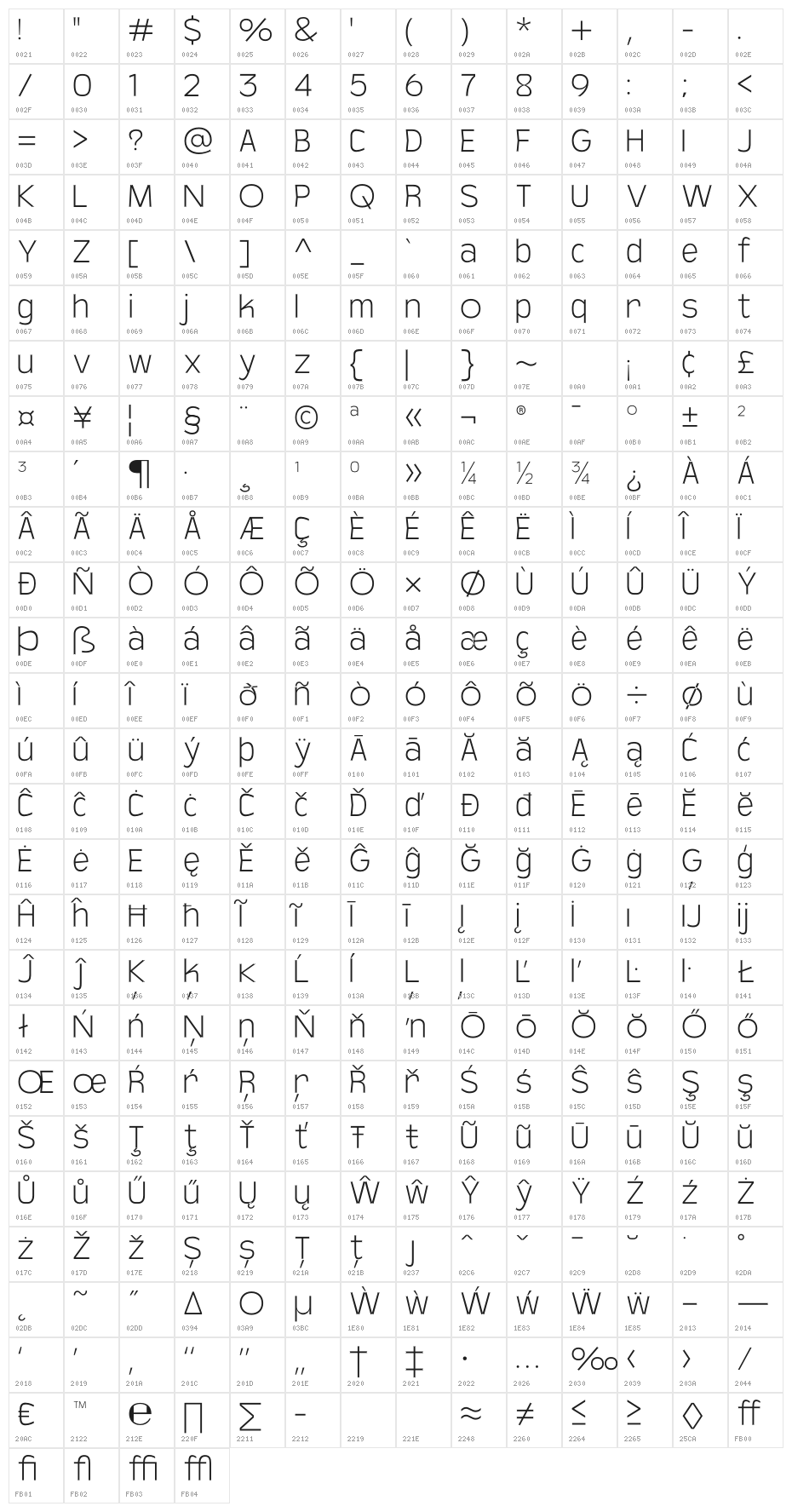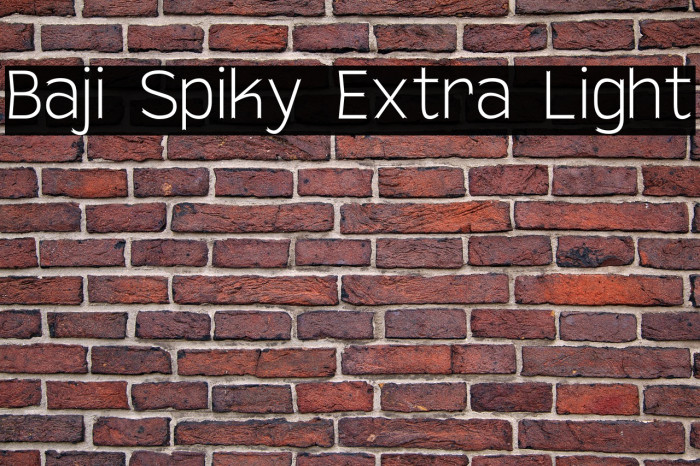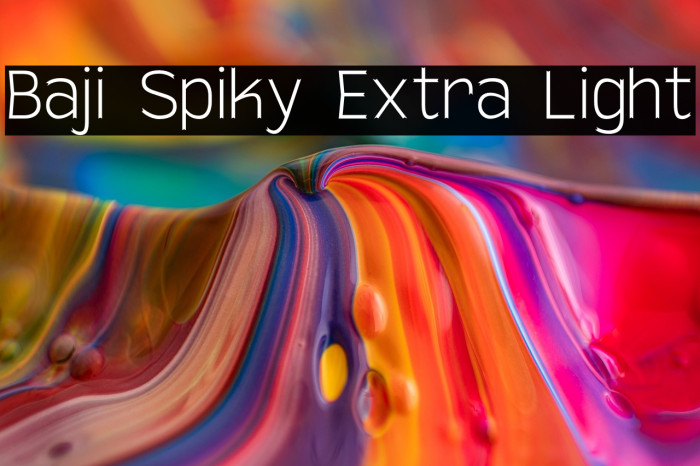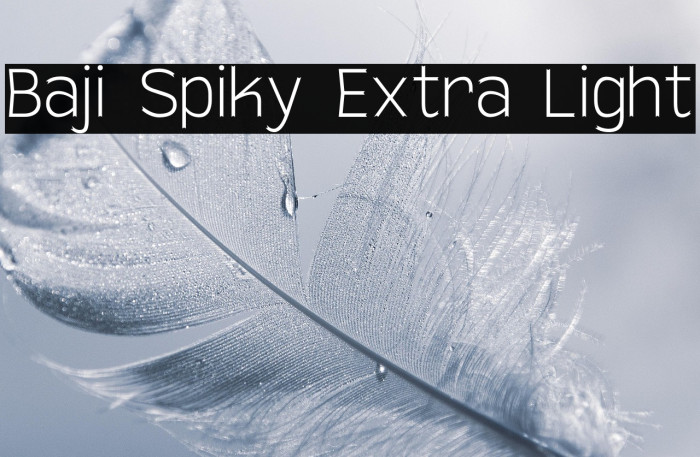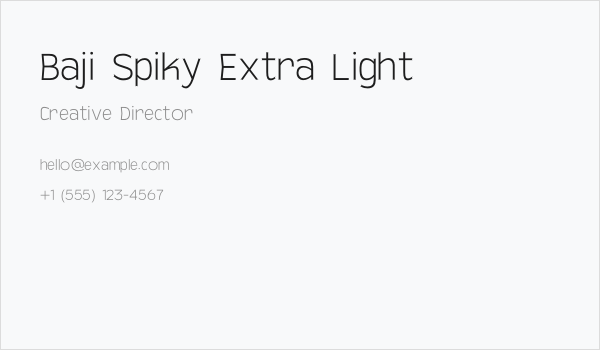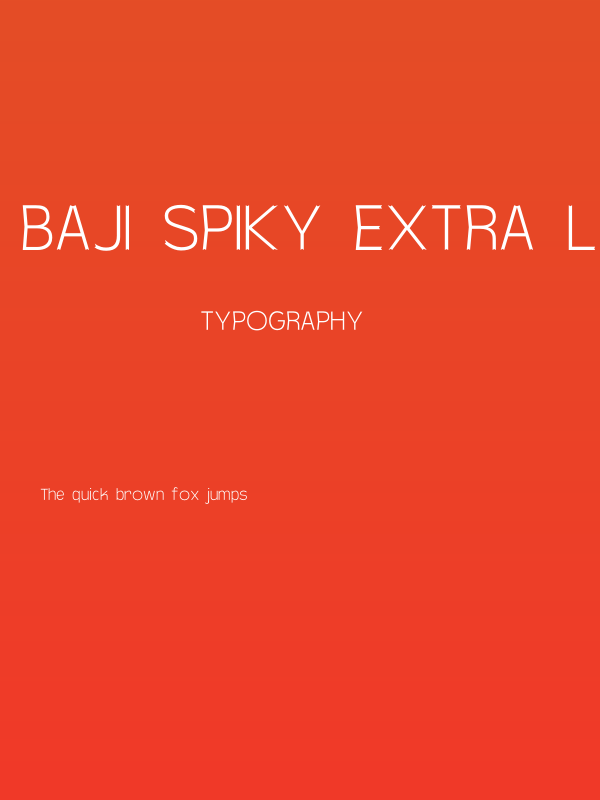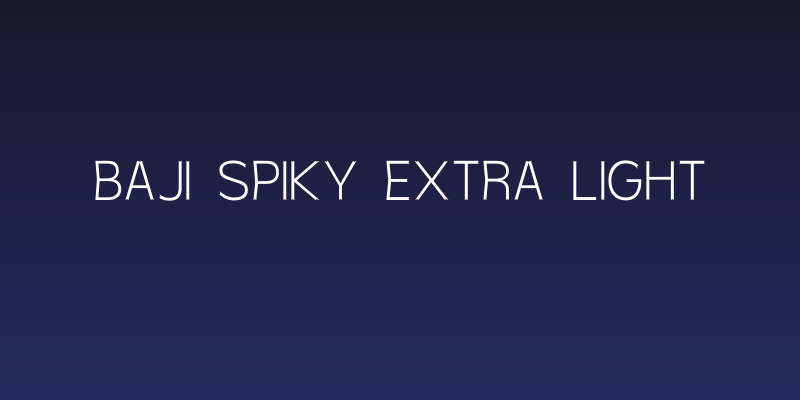
Baji Spiky Extra Light Font
Baji Spiky Extra Light Description
This font features a sleek and modern design with a distinct spiky appearance. The characters are crafted with an extra-light weight, giving them an airy and elegant feel. The uppercase letters are tall and slightly condensed, while the lowercase letters maintain a consistent height, enhancing readability. The numerals are clear and straightforward, matching the overall minimalist aesthetic. Special characters are well-defined, adding versatility to the font's application. The clean lines and sharp angles make it suitable for contemporary design projects.
| Proposed Projects | Ideal for modern branding, tech-related designs, minimalist posters, and digital interfaces. |